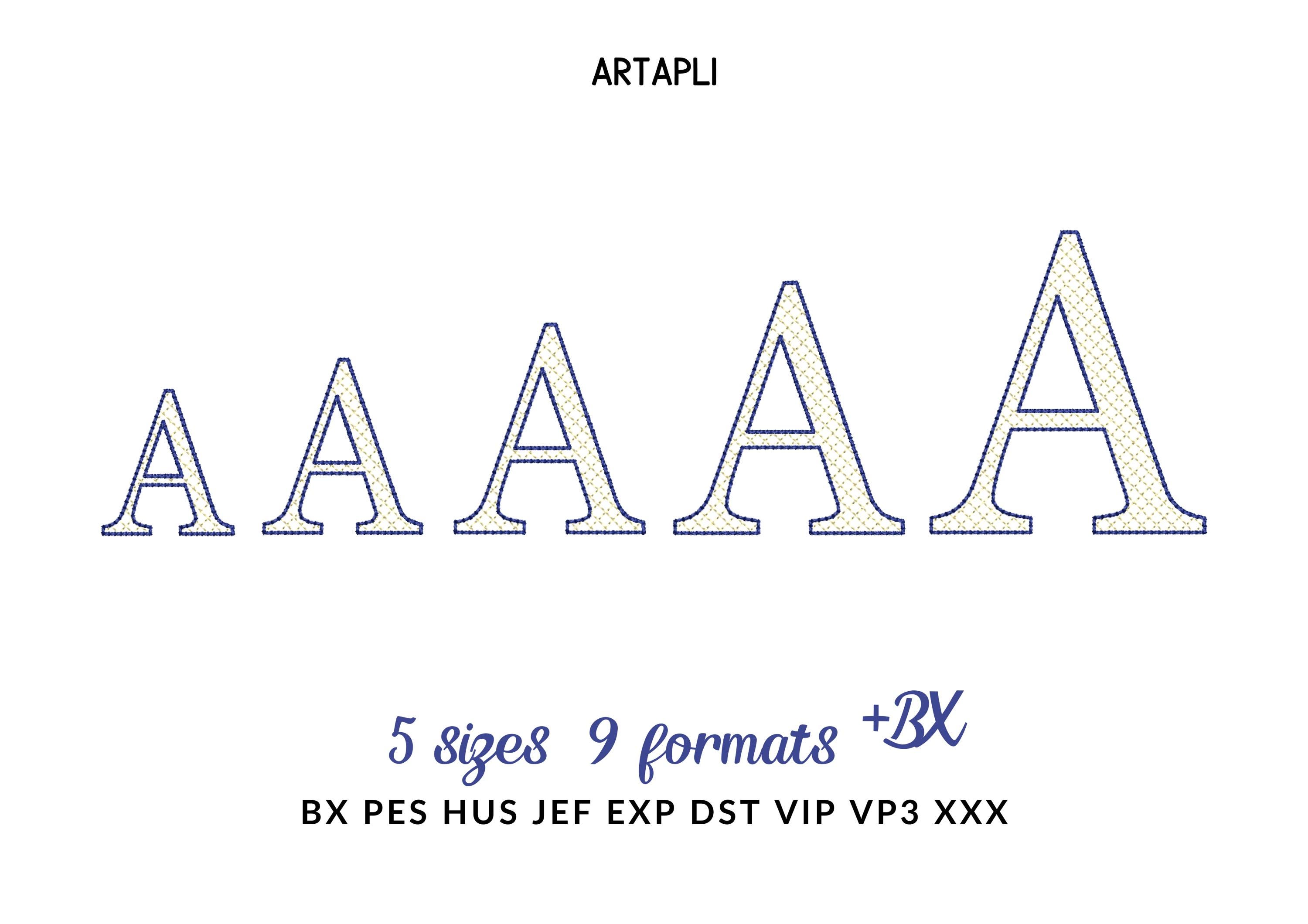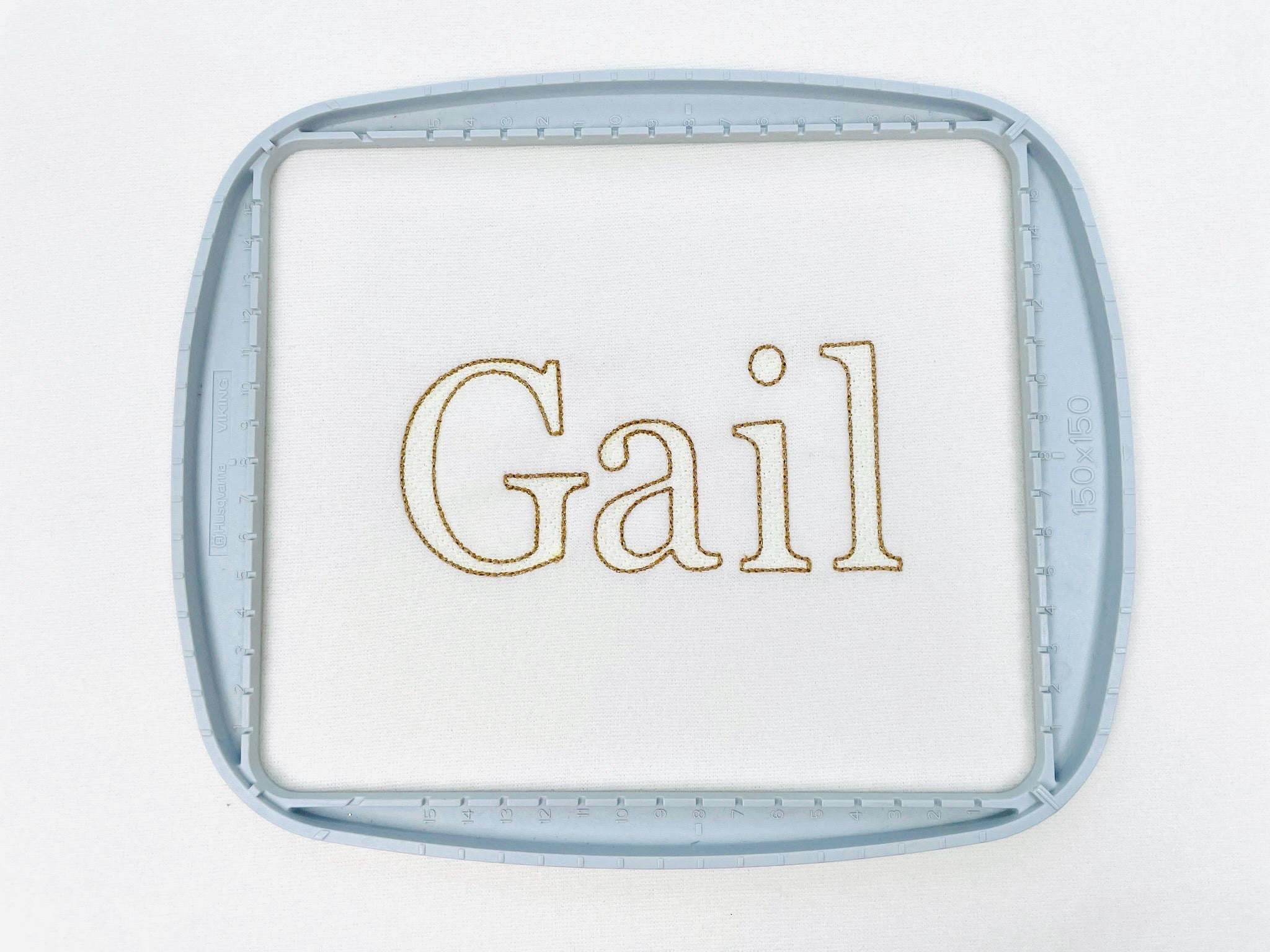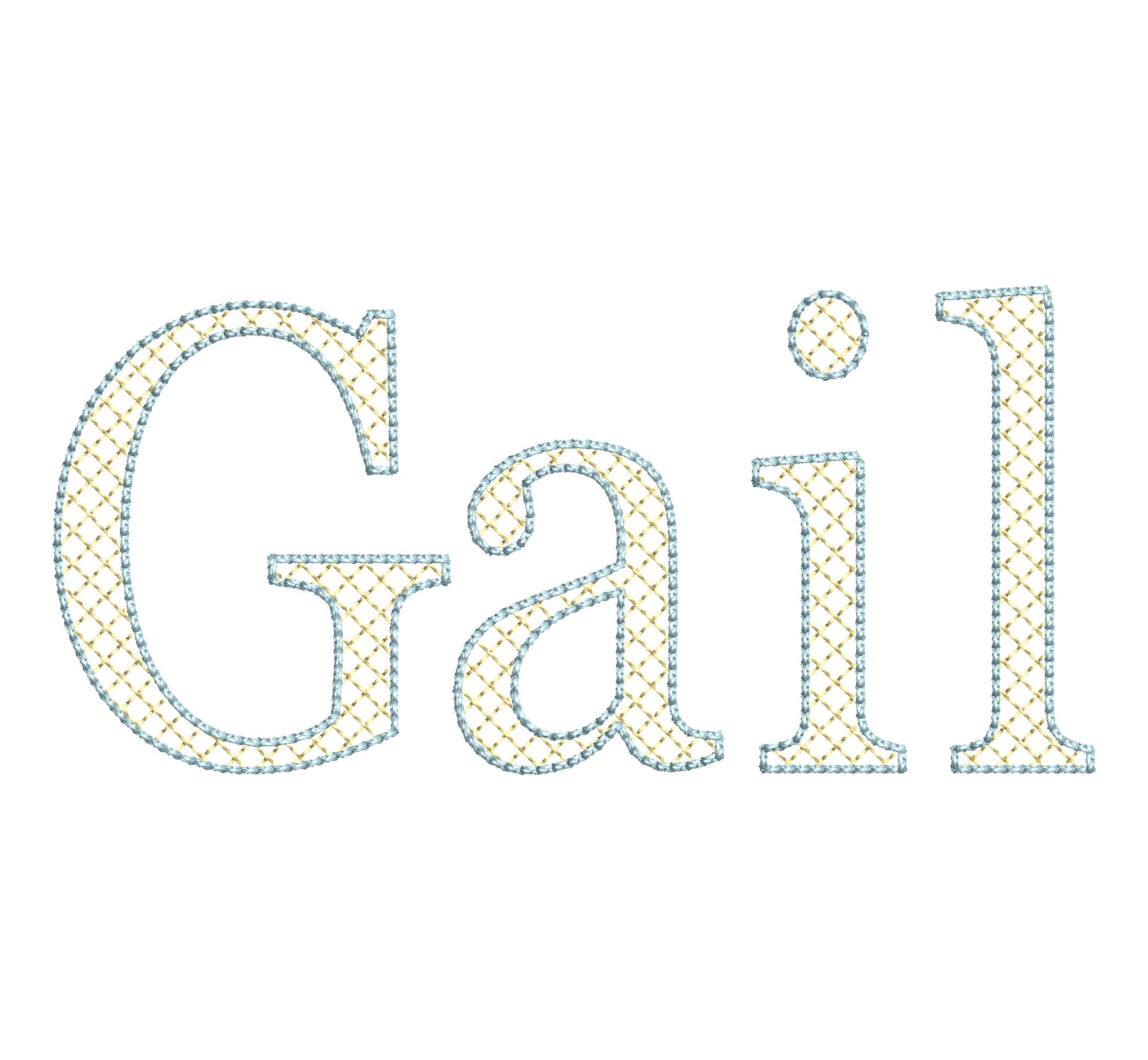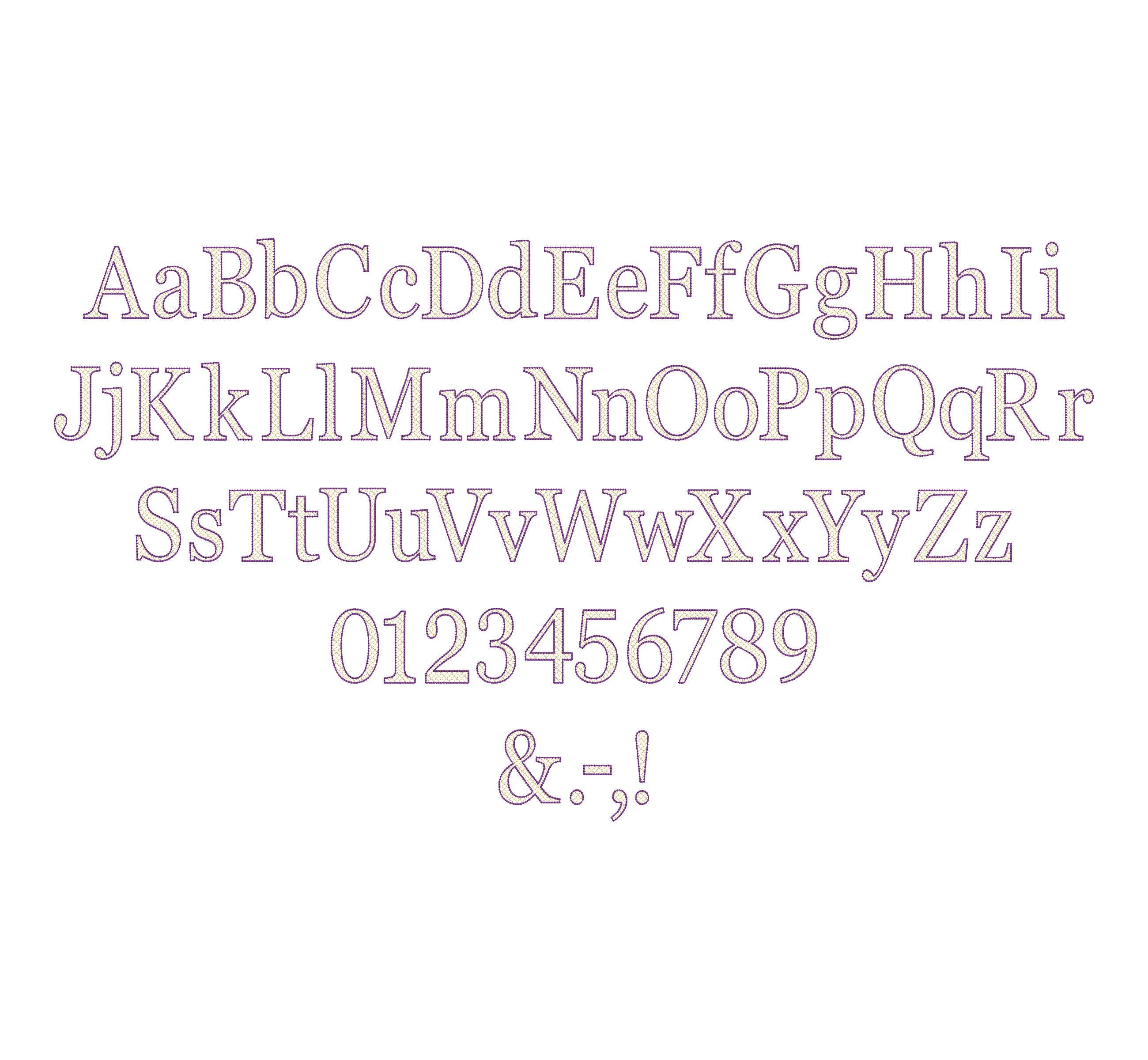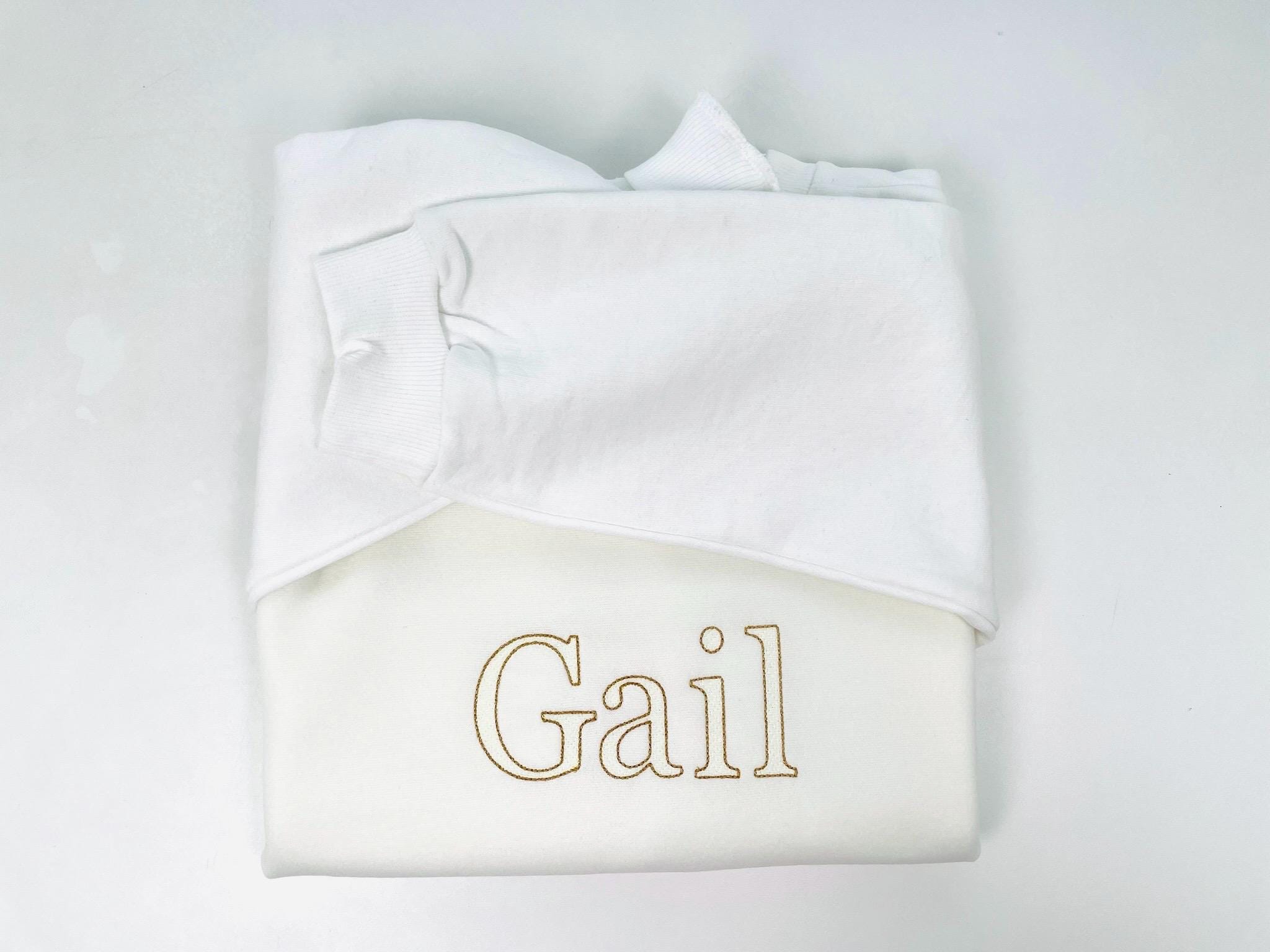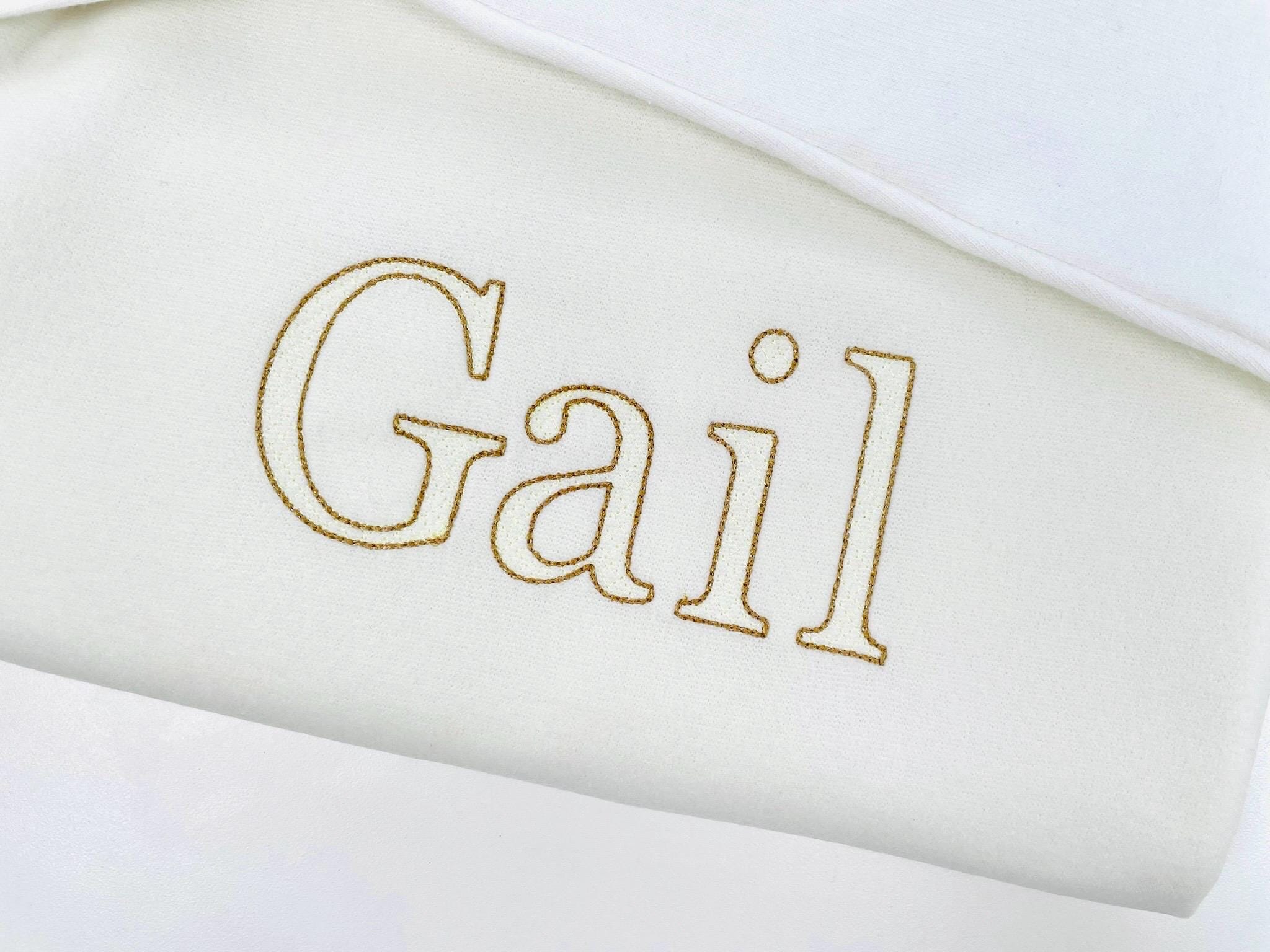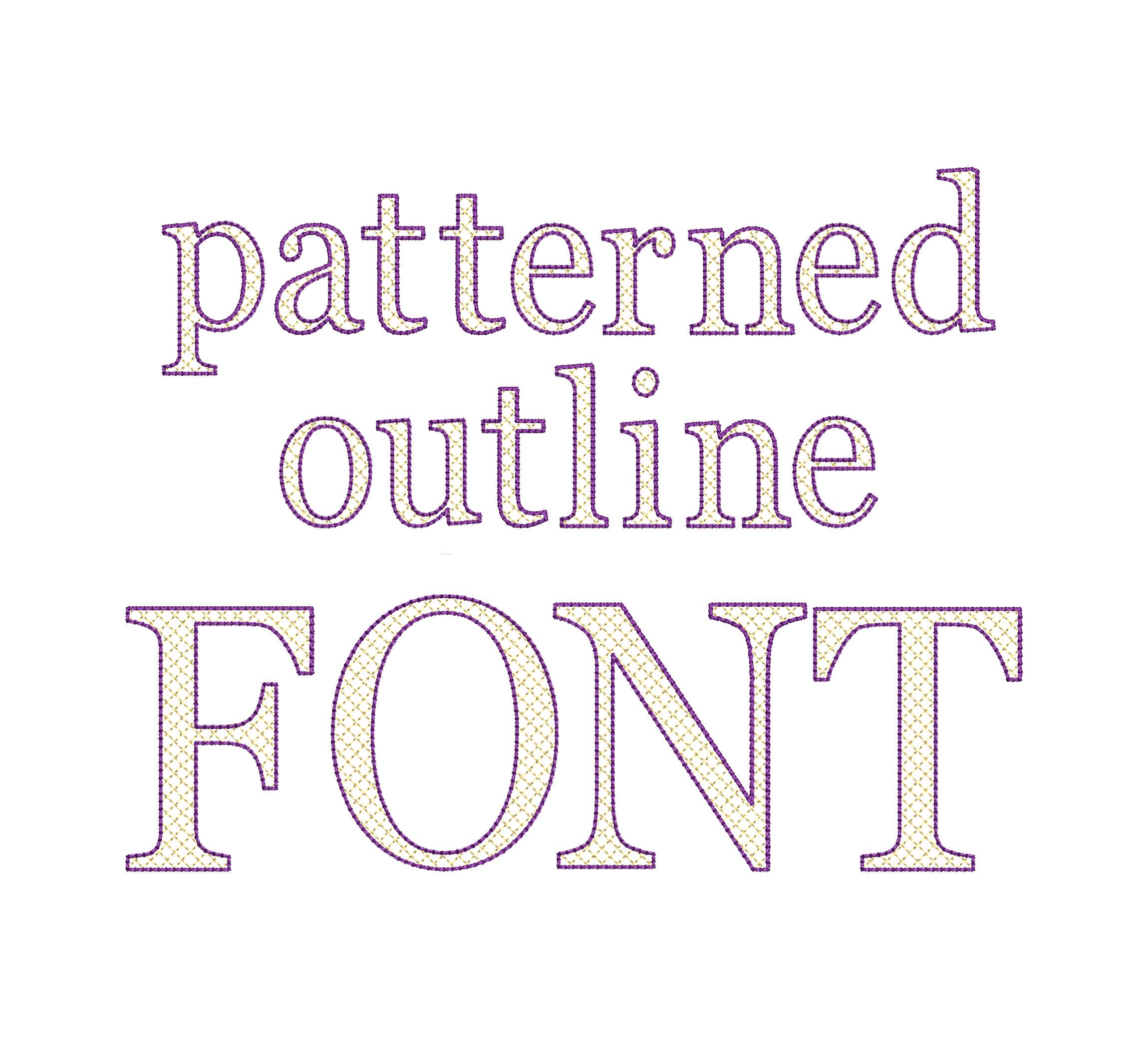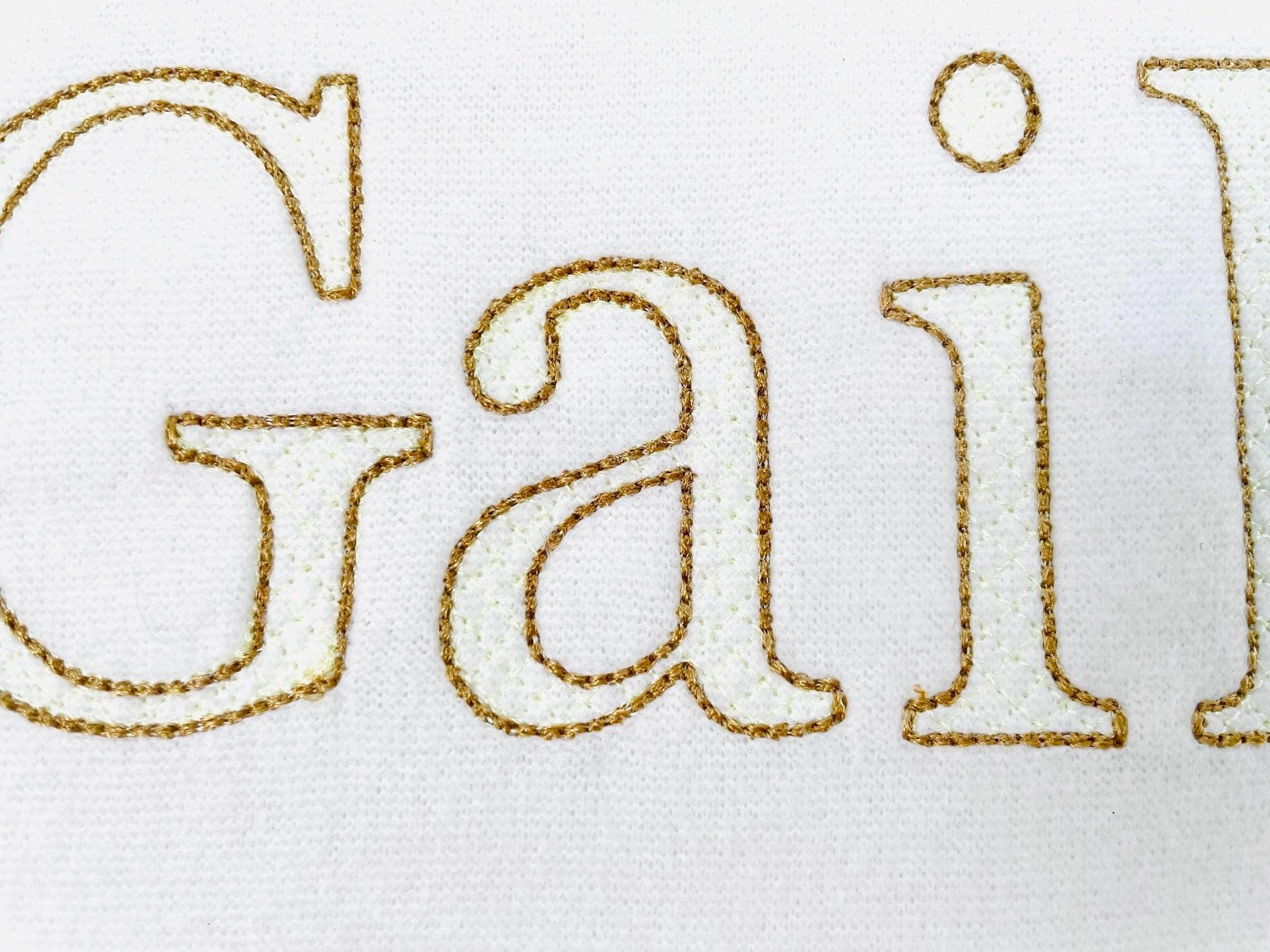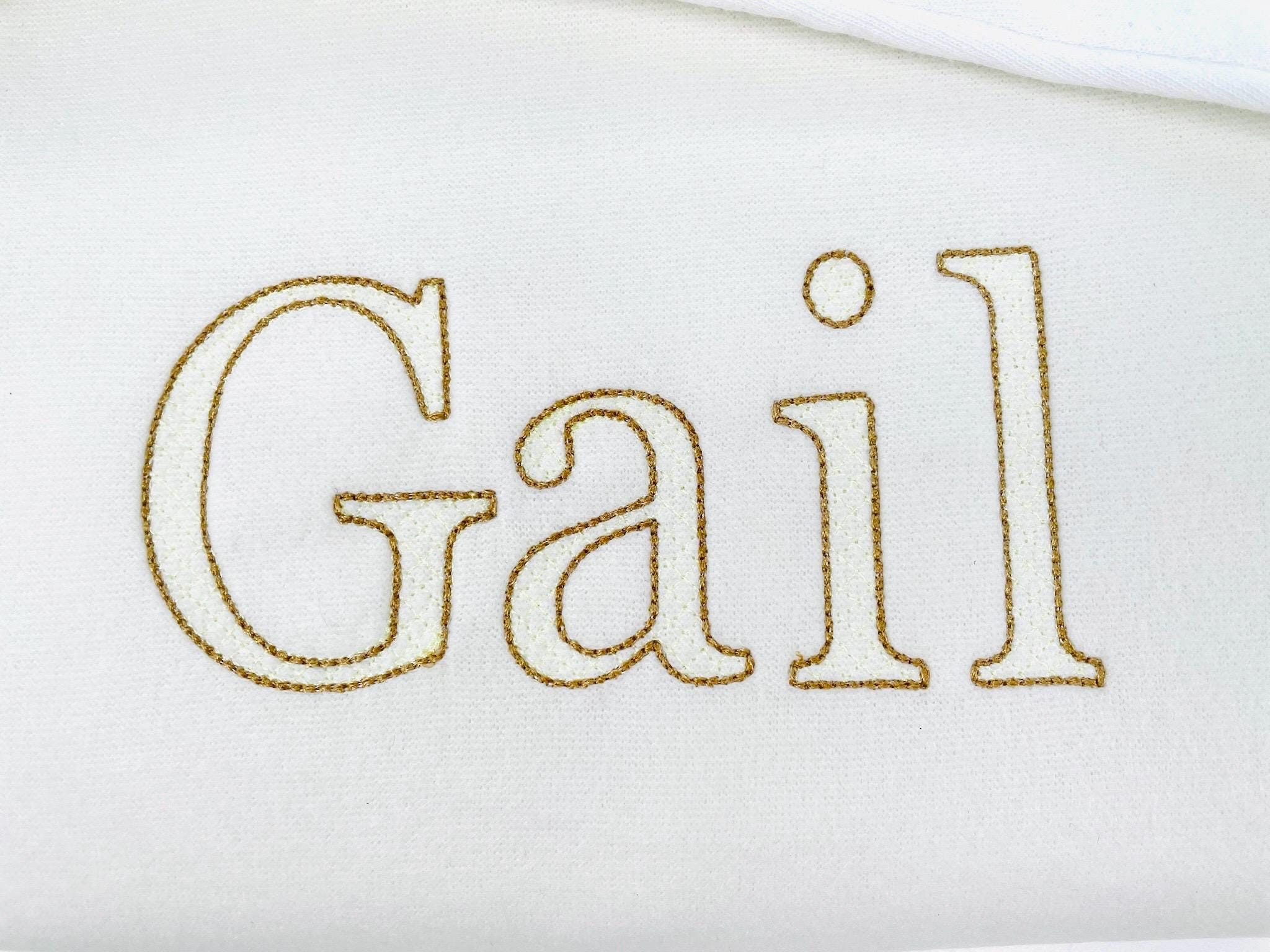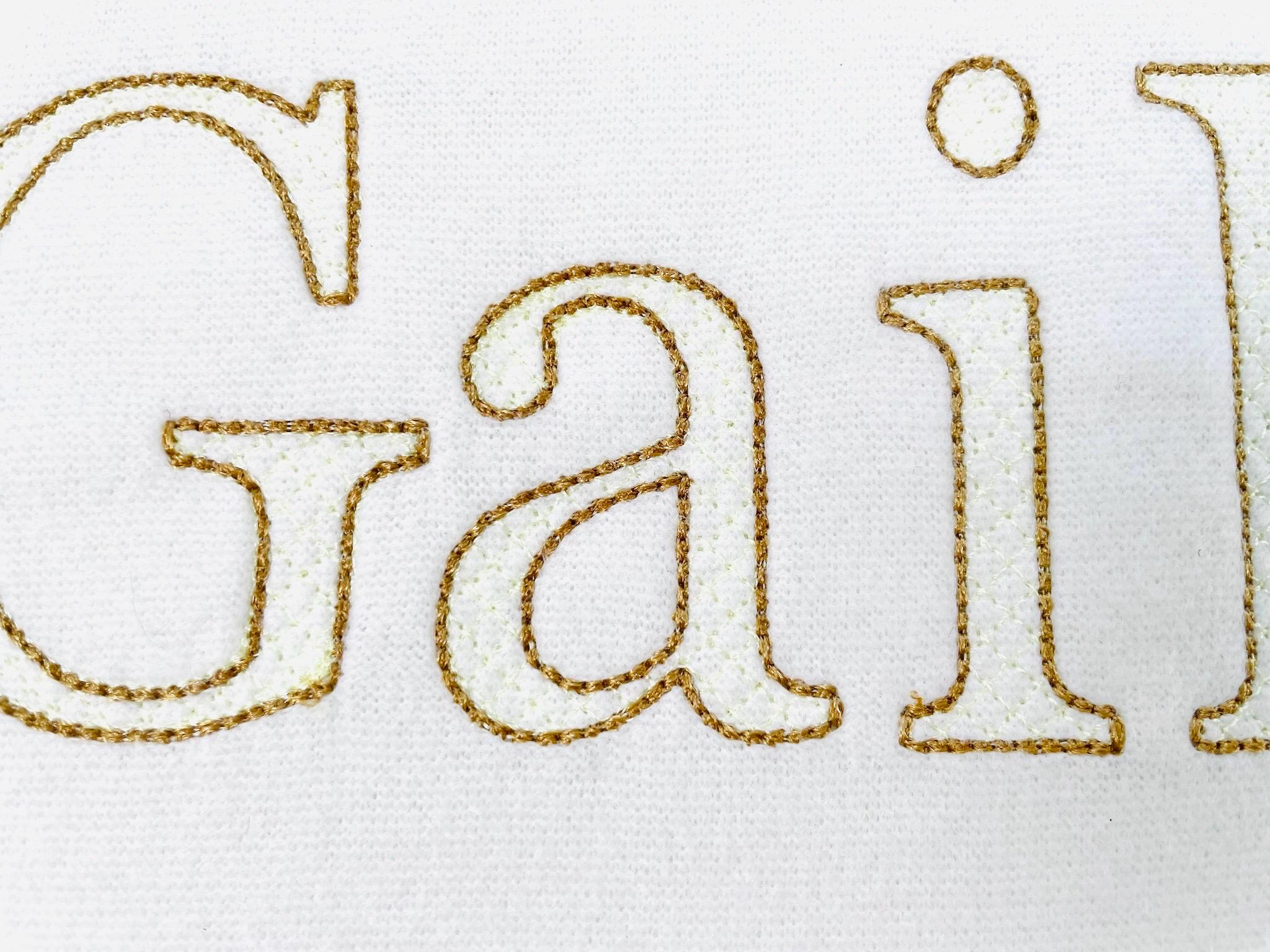
Elegant Diamond FONT Gail quilt and bean stitch outline varsity block Alphabet Monogram machine embroidery designs sizes 1.6 up to 3.4 inch
Entire alphabet uppercase and lowercase letters, numbers, and punctuation.
This is a transparent font, and the background fabric looks through. Stunning effect!